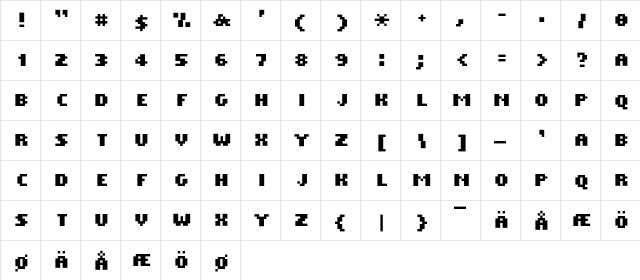
Dwarf Fat
Design Context for Dwarf Typeface
Dwarf is a composed and adaptable typeface that performs quietly and consistently across a wide range of design contexts.